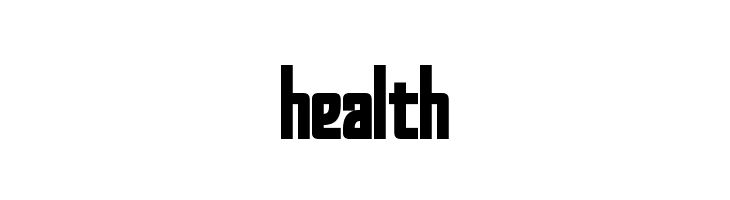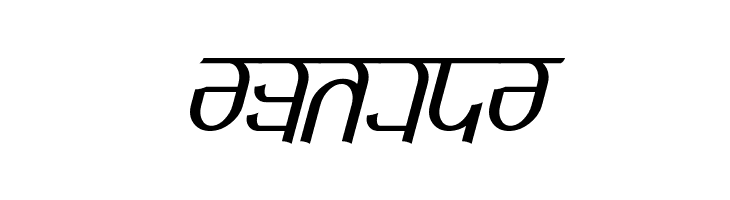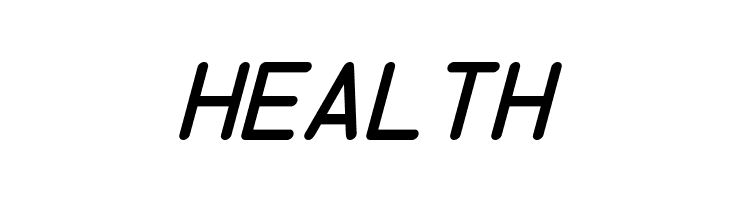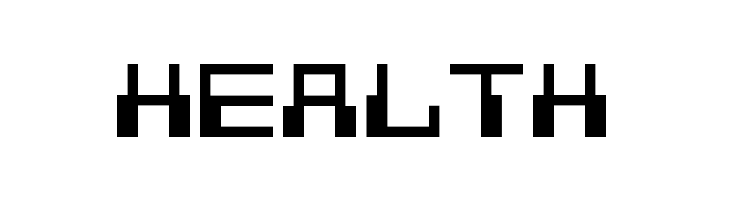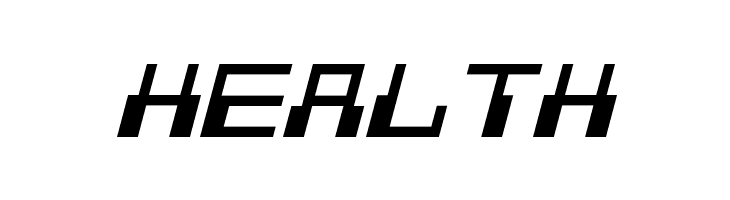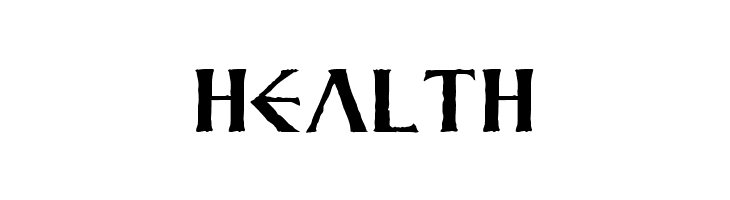
A bold, geometric font with thick strokes and a strong presence.
An artistic script font with flowing, connected letterforms and a rhythmic, elegant style.
Bold, italic font with slanted, robust letterforms and rounded edges.
A bold, rounded sans-serif font with a modern and approachable style.
A modern, italicized font with uniform strokes and dynamic appeal.
A pixelated, retro font inspired by early digital displays and pixel art.
A pixelated, italic font with a retro digital aesthetic.